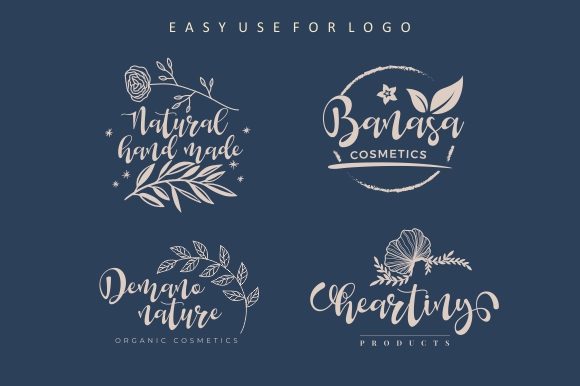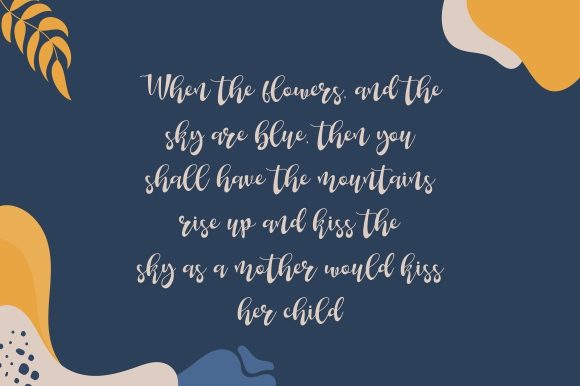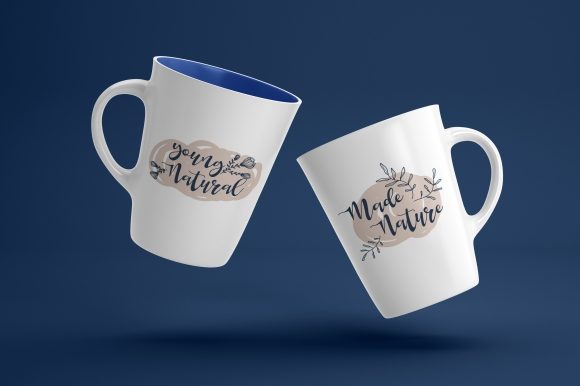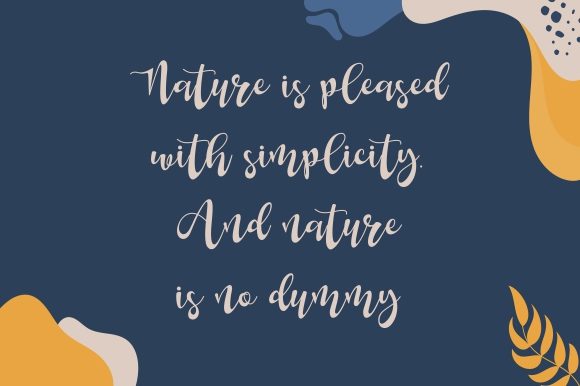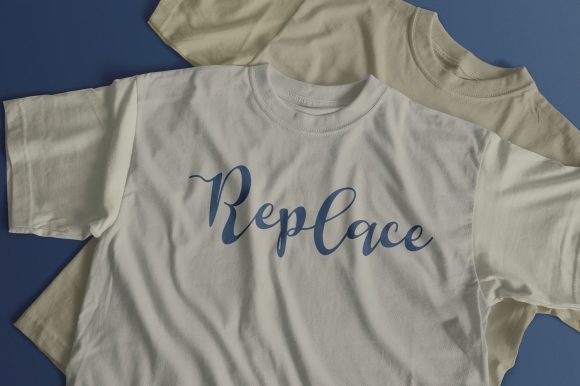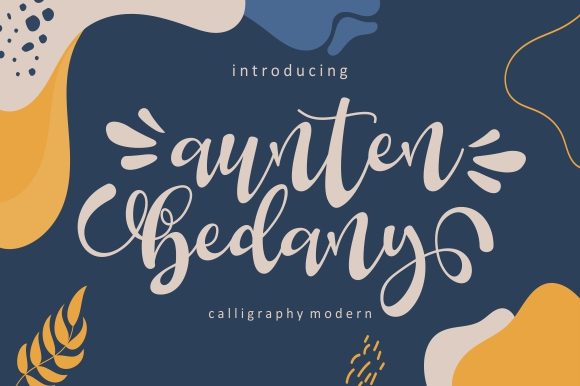
The Enchanting Auntent Bedany Font: A Designer’s Delight
I’ll never forget the time I was working on a project for a client who wanted a elegant and sophisticated look. I had spent hours browsing through font libraries, but nothing seemed quite right. That was until I stumbled upon the Auntent Bedany font. Its delicate and elegant handwritten style immediately caught my eye, and I knew I had found the perfect fit. In this article, I’ll share my love for this beautiful font, its features, and how to make the most of it in your designs.
• ✨ Delicate and elegant handwritten style
• ✅ Well-rounded letters that exude sophistication
• 💫 Incredibly versatile and suitable for various design projects
• 🎨 Perfect for creating beautiful headings, titles, and quotes
While Auntent Bedany is an exceptional font, there are a few things to keep in mind:
• 🤔 May not be the best choice for body text due to its elegant and cursive nature
• ⚠️ Some letters may appear too delicate or thin on certain backgrounds or resolutions
A Practical Guide to Using Auntent Bedany
3. Experiment with OpenType features, such as ligatures and stylistic alternates, to add more flair to your text.
The Story Behind Auntent Bedany
Auntent Bedany was designed by a talented type designer who wanted to create a font that exuded elegance and sophistication. The font’s delicate and well-rounded letters were inspired by traditional calligraphy and handwriting. The designer’s goal was to create a font that would be versatile and suitable for various design projects, from wedding invitations to business branding.
Q: What is the best use for Auntent Bedany?
A: Auntent Bedany is perfect for creating beautiful headings, titles, and quotes. Its elegant and cursive nature makes it ideal for formal and sophisticated designs.
Q: Can I use Auntent Bedany for body text?
A: While Auntent Bedany is an exceptional font, it may not be the best choice for body text due to its elegant and cursive nature. It’s better suited for headings and titles.
Q: Is Auntent Bedany suitable for digital use?
A: Yes, Auntent Bedany is suitable for digital use. Its clear and well-defined letters make it easy to read on various devices and resolutions.